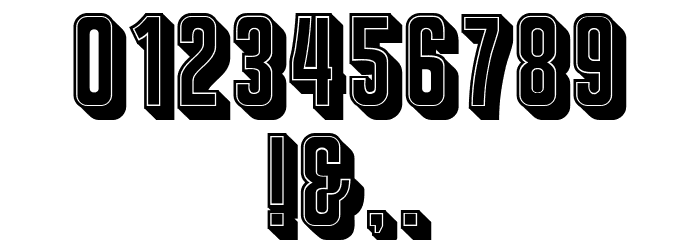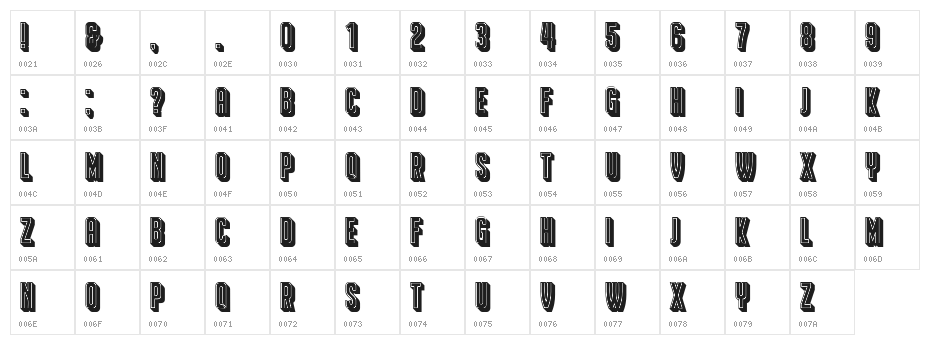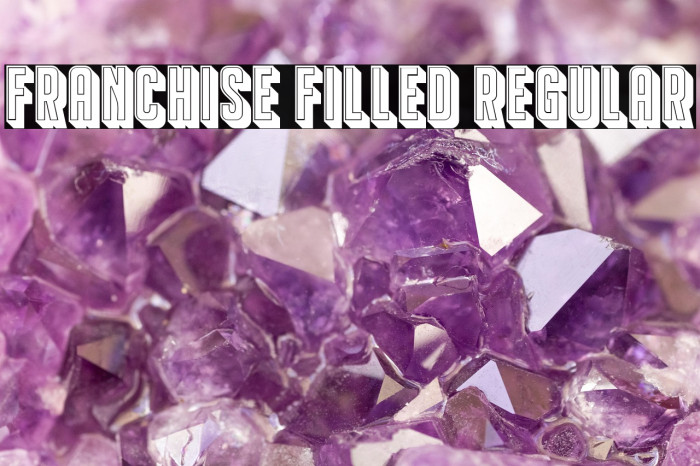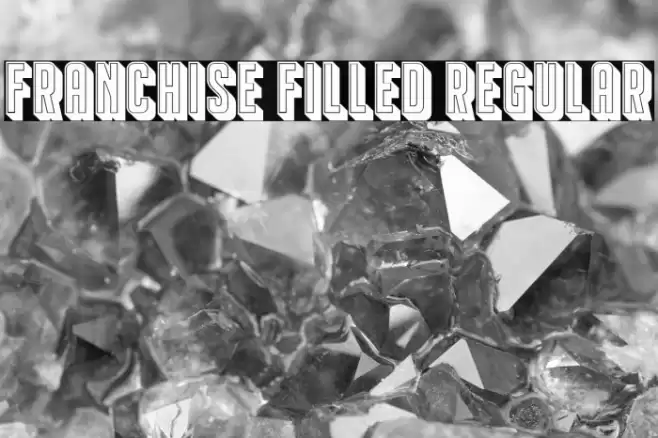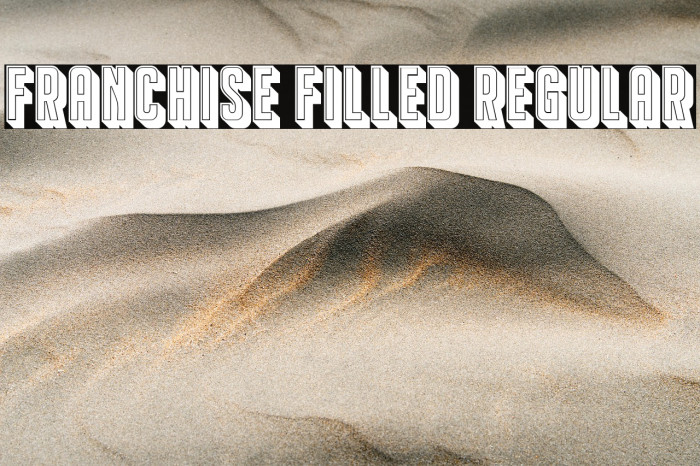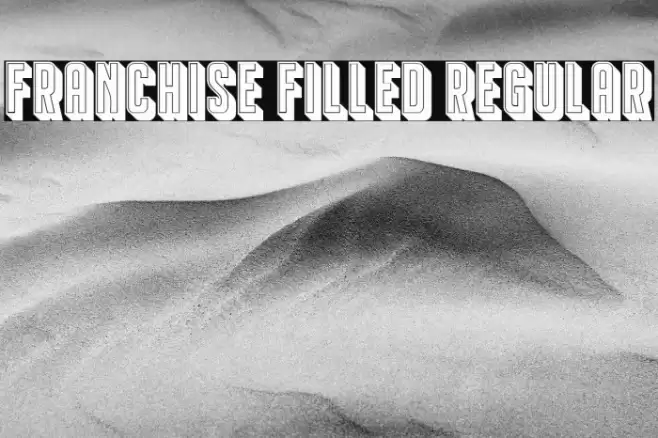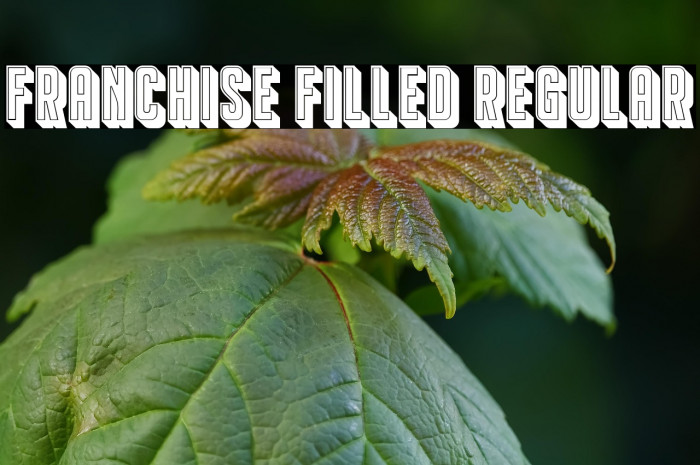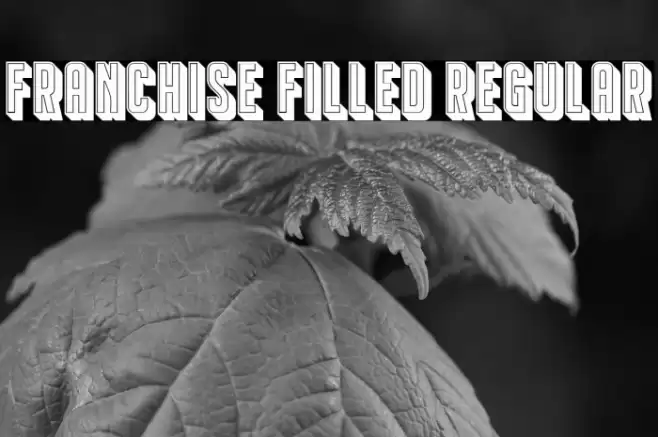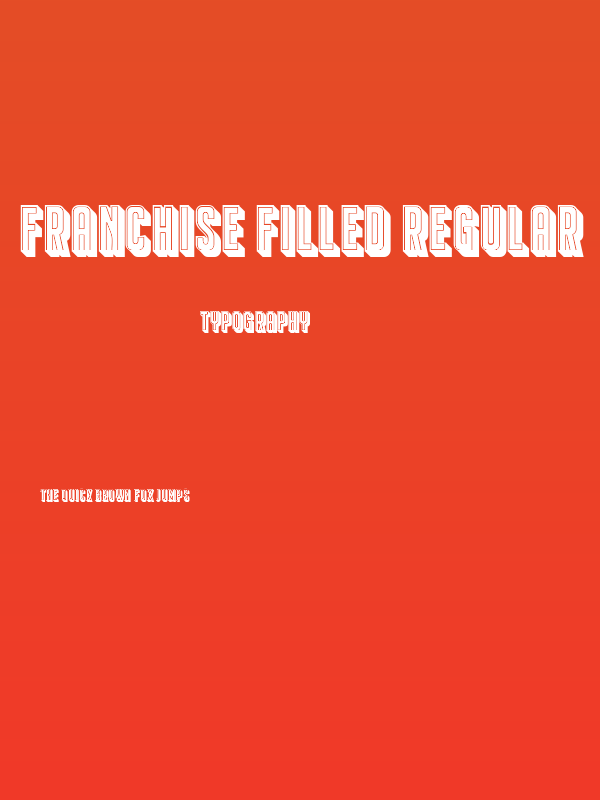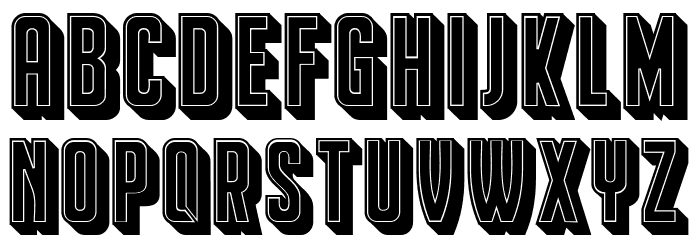
Franchise Filled Regular Font
Franchise Filled Regular Description
This font features a bold, impactful design with a strong presence. The characters are outlined with a thick border, creating a three-dimensional effect that stands out. The uppercase letters are uniform in height, with a geometric structure that conveys strength and stability. The numbers and special characters maintain the same bold style, ensuring consistency across all elements. This font is ideal for making a statement, with its eye-catching design that demands attention.